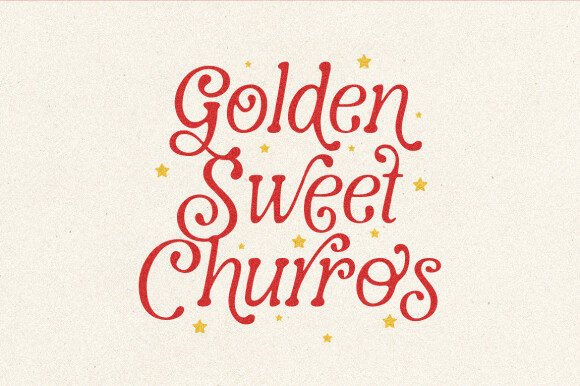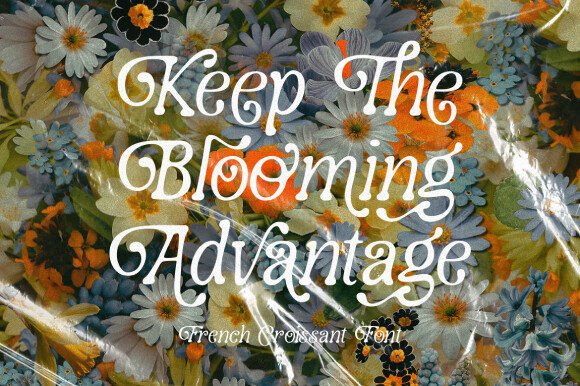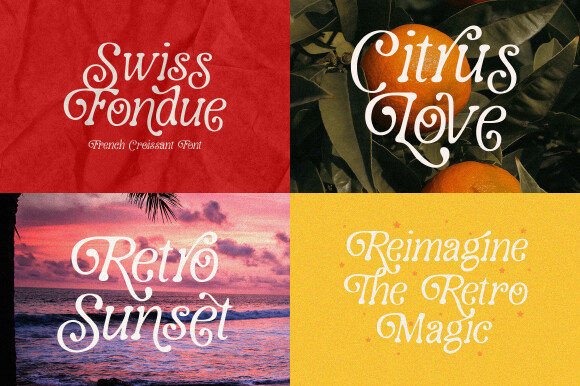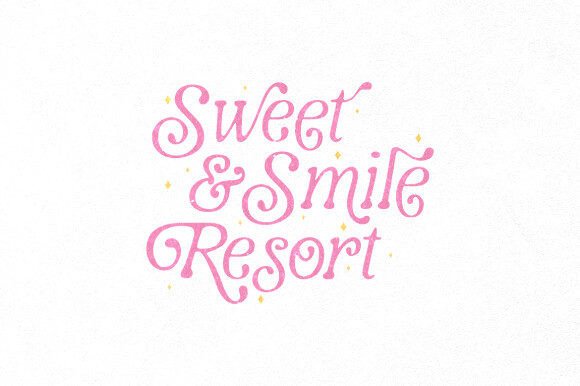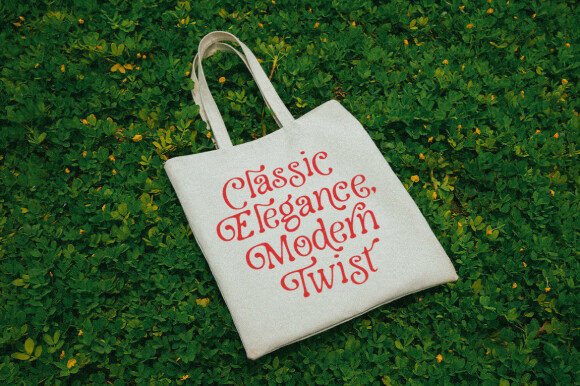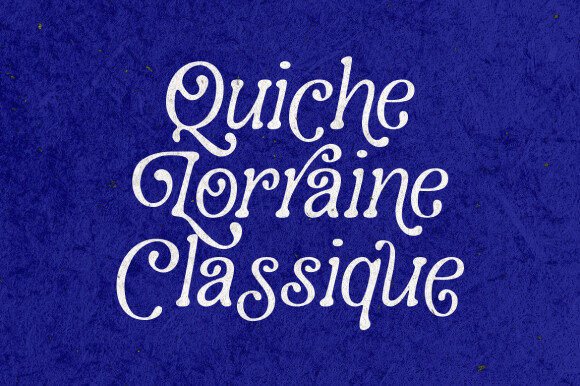
Introducing French Croissant Font: A Deliciously Passionate Typeface
Are you tired of using the same old fonts for your designs? Look no further! We’re excited to introduce the French Croissant Font, a hand-drawn, italic typeface that’s sure to add a touch of elegance and sophistication to your branding designs, logos, posters, merchandise, and more.
A Unique and Characteristic Font
The French Croissant Font is a one-of-a-kind typeface that’s been carefully crafted to bring a sense of passion and flair to your designs. With its italic style, this font is perfect for creating visually appealing and engaging text that will capture the attention of your audience. The hand-drawn nature of the font gives it a personal and human touch, making it perfect for designs that require a more bespoke feel.
Versatile and Adaptable
One of the best things about the French Croissant Font is its versatility. Whether you’re designing a logo, poster, or merchandise, this font is sure to fit the bill. Its unique style and characteristics make it suitable for a wide range of design applications, from elegant and sophisticated to playful and whimsical.
Key Features of the French Croissant Font
- Hand-drawn with an italic style
- Characteristic of various types of letter styles
- Perfect for branding designs, logos, posters, merchandise, and more
- Unique and elegant feel
- Versatile and adaptable
Why Choose the French Croissant Font?
So, why should you choose the French Croissant Font for your next design project? Here are just a few reasons:
- Add a touch of elegance: The French Croissant Font is the perfect way to add a touch of elegance and sophistication to your designs.
- Stand out from the crowd: With its unique and characteristic style, the French Croissant Font is sure to make your designs stand out from the crowd.
- Support multiple languages: The French Croissant Font supports multiple languages, making it perfect for designers who work with international clients.
Design Inspiration
The French Croissant Font is inspired by the classic French croissant pastry. The font’s elegant and curved lines are reminiscent of the flaky, buttery pastry that’s a staple of French bakeries. The font’s italic style gives it a sense of movement and energy, making it perfect for designs that require a sense of dynamism.
Tips for Using the French Croissant Font
Here are a few tips for using the French Croissant Font in your designs:
- Use it sparingly: The French Croissant Font is a statement font, so use it sparingly to add emphasis to your designs.
- Pair it with other fonts: The French Croissant Font pairs well with other fonts, such as sans-serif fonts, to create a visually appealing contrast.
- Experiment with colors: The French Croissant Font looks great in a variety of colors, from elegant gold and silver to bold and bright colors.
In conclusion, the French Croissant Font is a deliciously passionate typeface that’s sure to add a touch of elegance and sophistication to your designs. With its unique and characteristic style, versatility, and adaptability, this font is perfect for designers who want to create visually appealing and engaging text. So why not give it a try and see how it can elevate your designs?